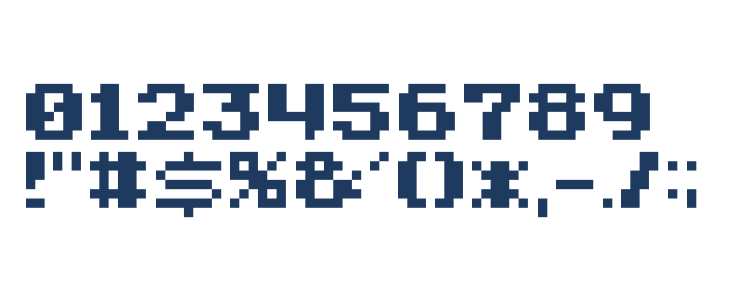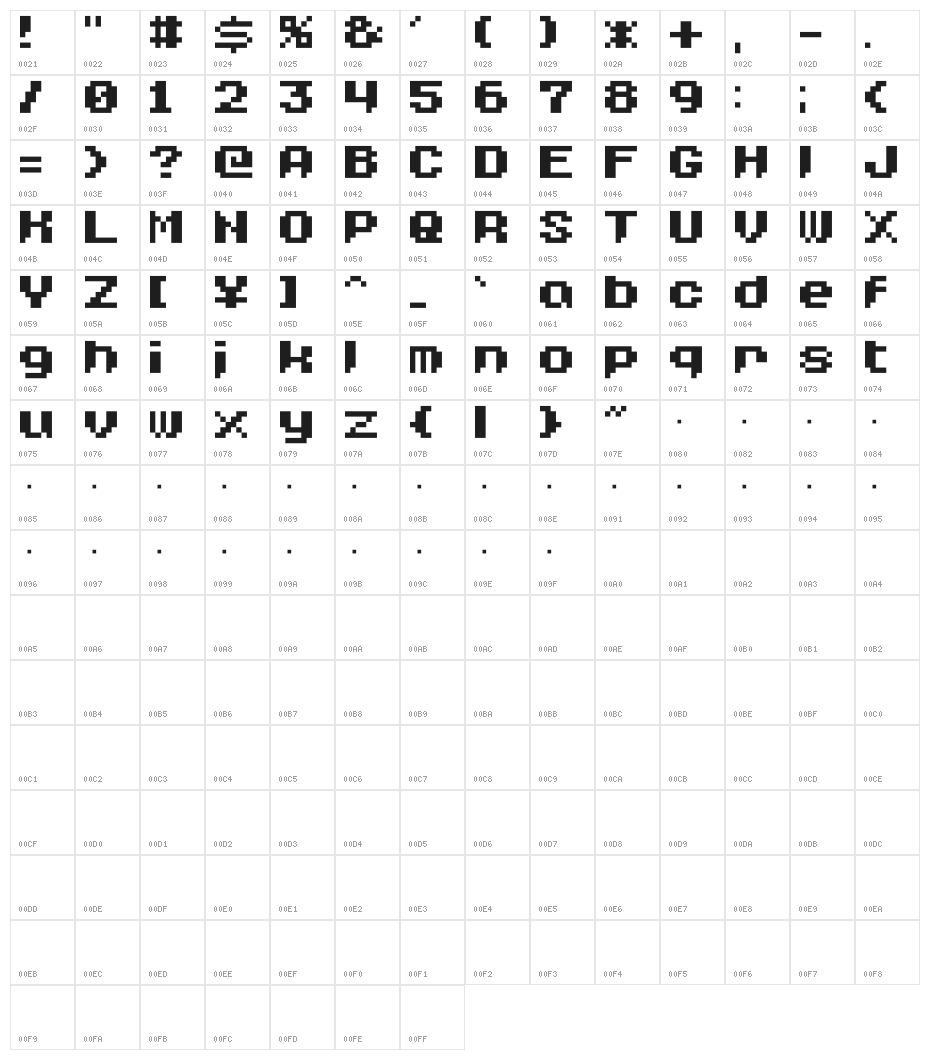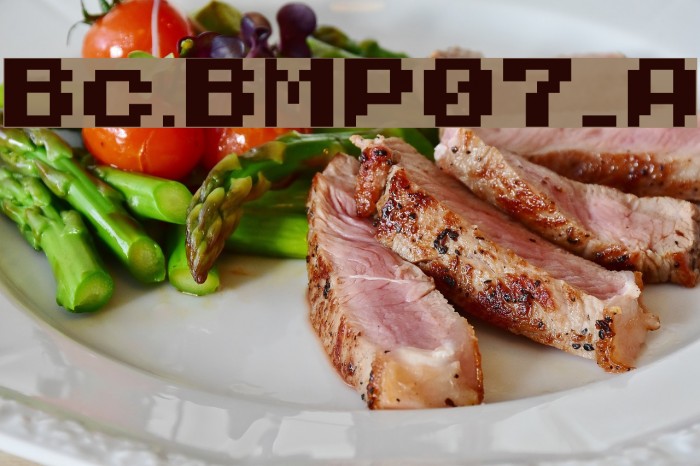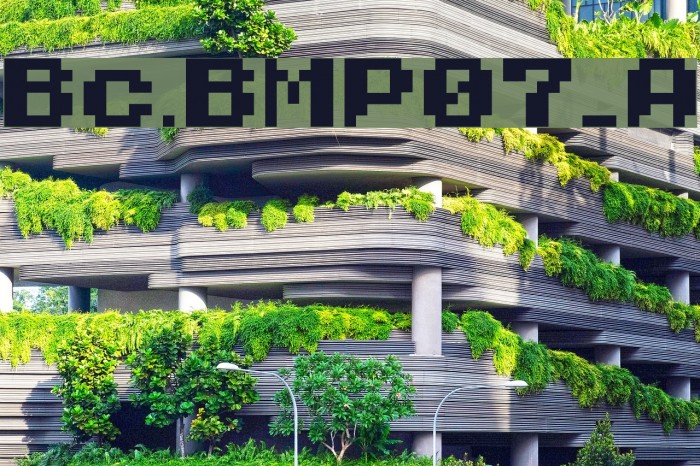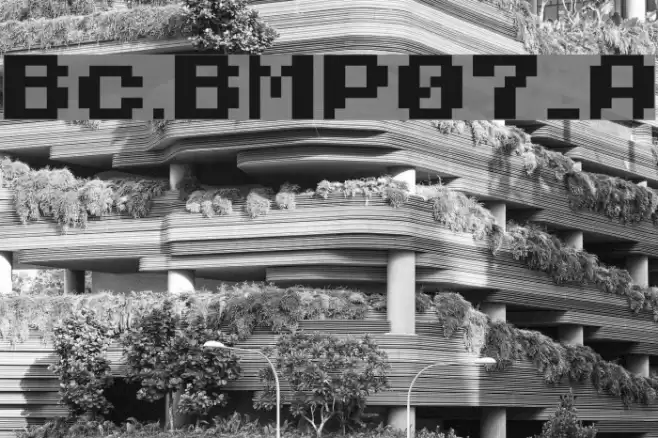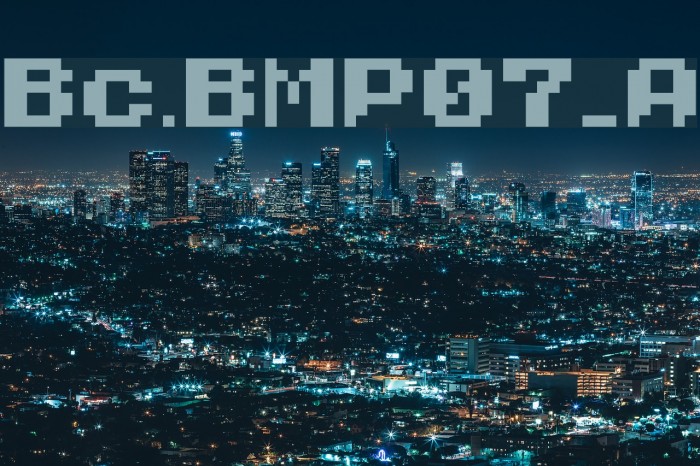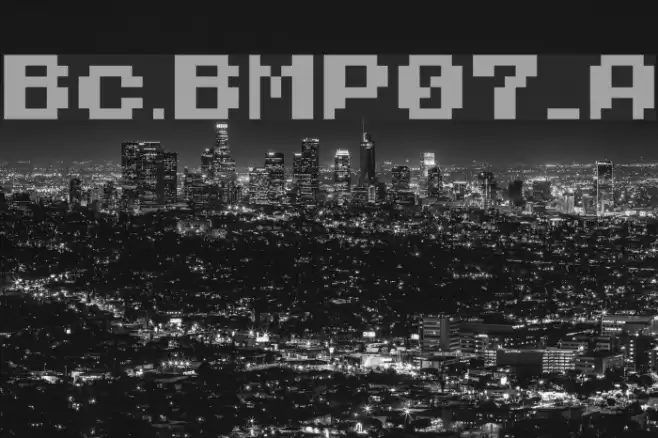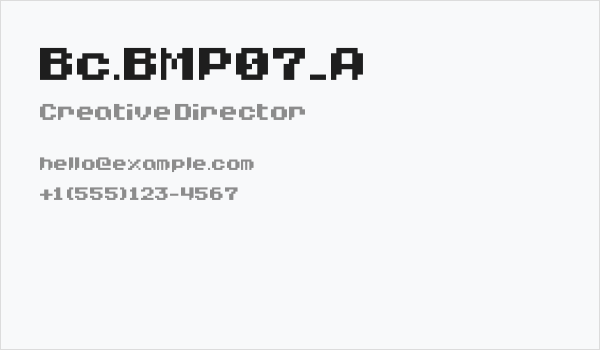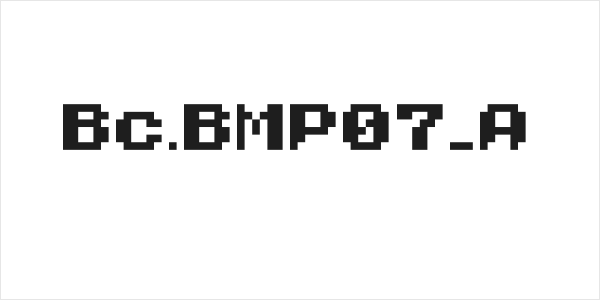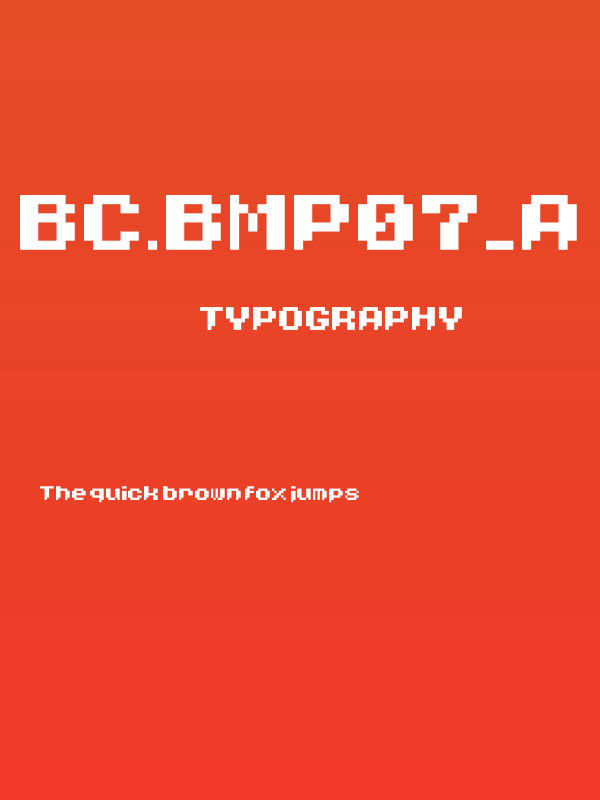
Bc.BMP07_A Font
Bc.BMP07_A Description
This font features a bold, pixelated design reminiscent of early digital displays and video games. Each character is constructed with a blocky, grid-like structure, giving it a distinctly retro and digital appearance. The uppercase and lowercase letters maintain a consistent height and width, contributing to a uniform and cohesive look. The numbers and special characters follow the same pixelated style, ensuring visual harmony across all elements. This font's nostalgic aesthetic is ideal for projects that aim to evoke a sense of vintage technology or gaming culture.
| Use Case | Logos, Headlines, Digital Art |
| Proposed Projects | Ideal for retro video game designs, digital art projects, and nostalgic tech-themed branding. |